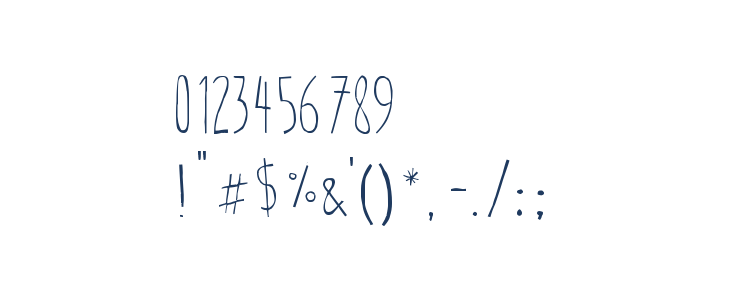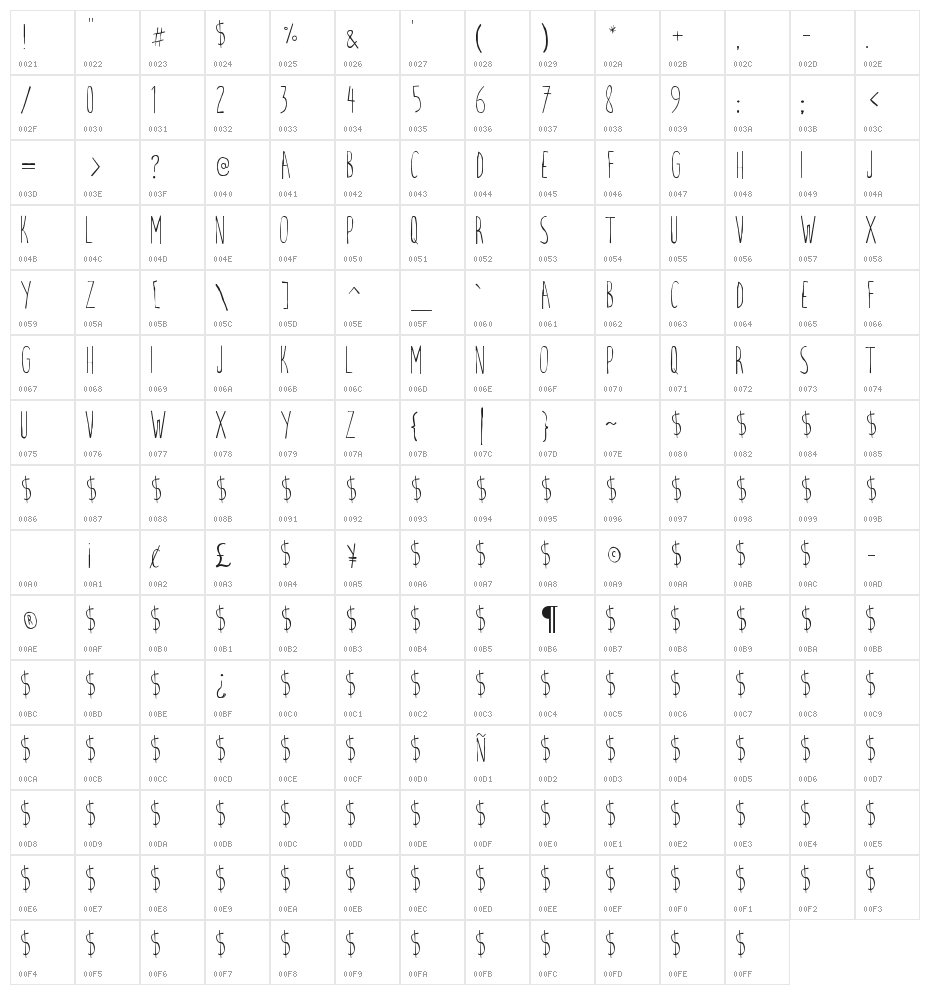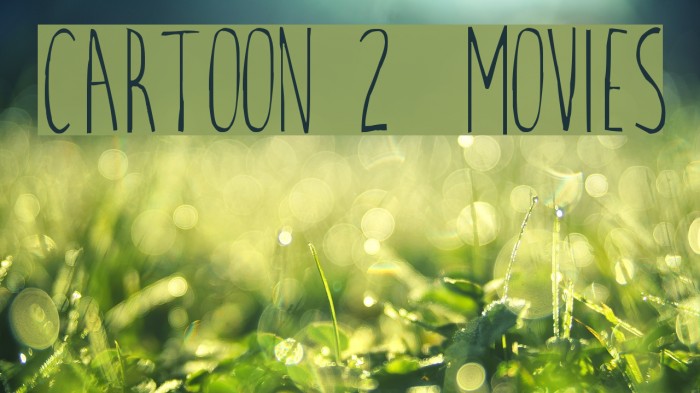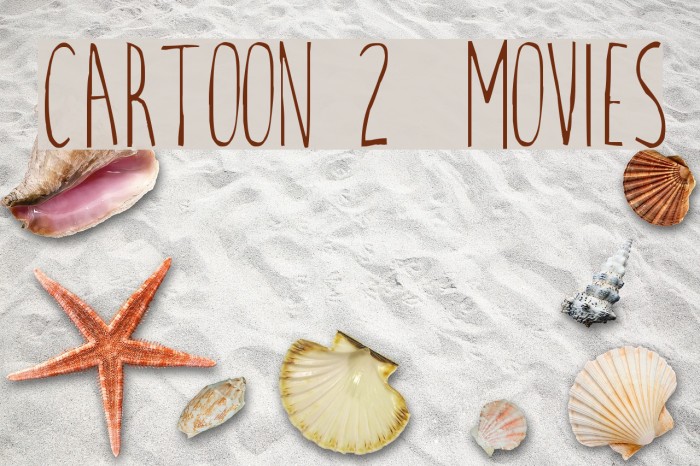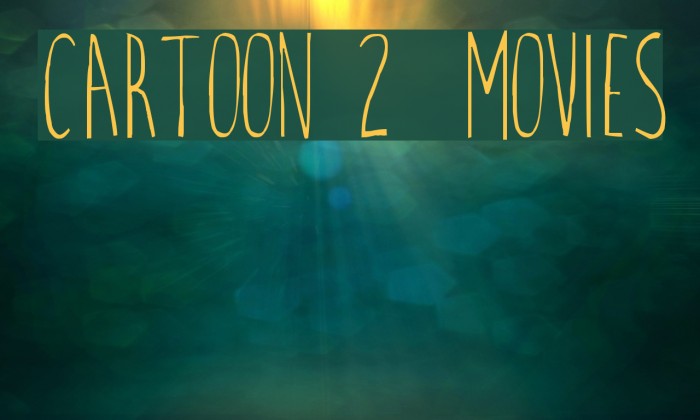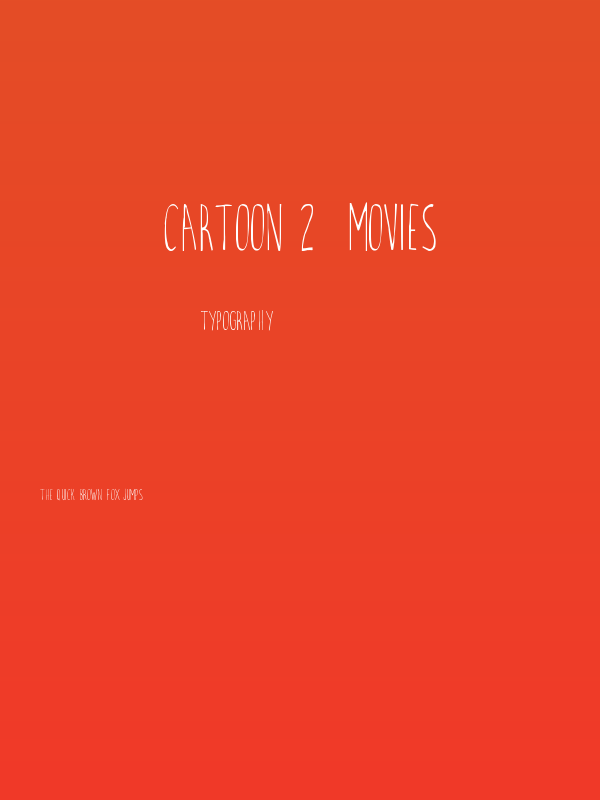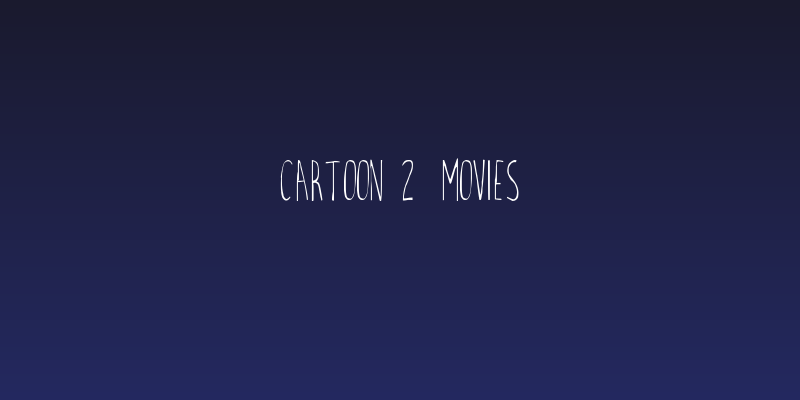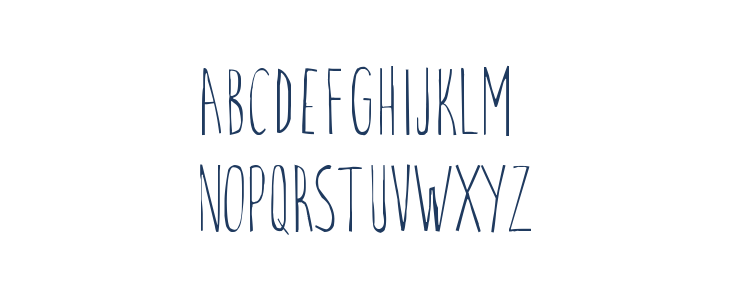
Cartoon 2 Movies Font
Cartoon 2 Movies Description
This font features a playful and whimsical design, characterized by tall, narrow letters with a hand-drawn appearance. The strokes are uneven, adding a casual and informal feel. The uppercase and lowercase letters maintain a consistent style, with slightly exaggerated curves and angles that enhance its quirky nature. The numerals and special characters follow the same aesthetic, ensuring a cohesive look across all text elements. This font's unique style makes it ideal for creative projects that require a touch of fun and personality.